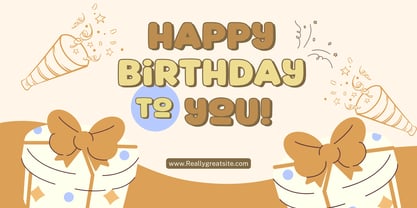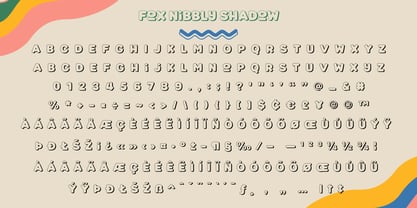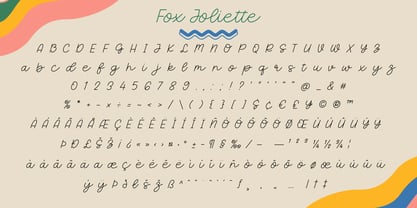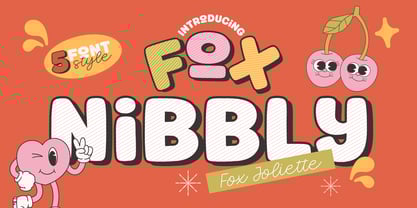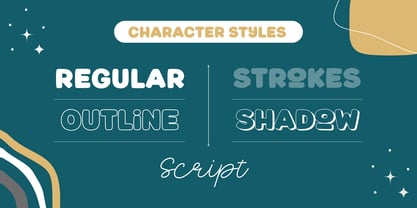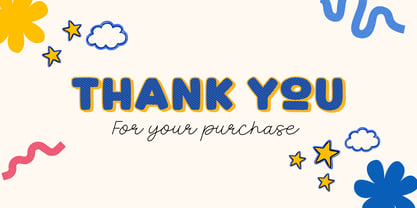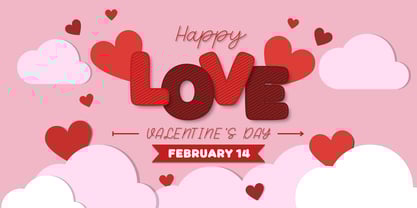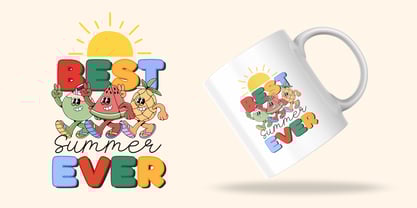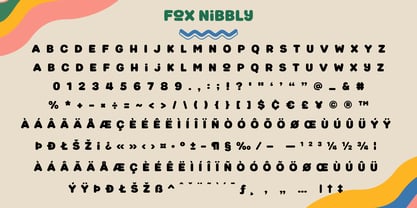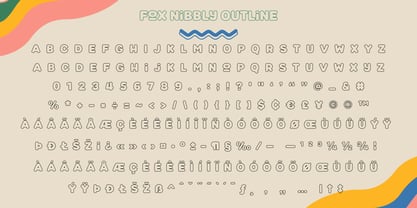
Fox Nibbly
by Fox7
The Fox Nibbly Font Family was designed by Rattana Rattanawan and published by Fox7. Fox Nibbly contains 5 styles and family package options. More about this family
Get ready to add a pop of cuteness and charm to your creative projects with Fox Joliette + Fox Nibbly – a delightful font duo inspired by retro cartoons, kawaii style
This font family includes 5 fun and versatile styles that are perfect for children’s books, packaging, branding, party invitations, social media posts, and more!
Fox Nibbly Regular – Bold, bubbly letters full of personality
Fox Nibbly Outline – A clean outline version perfect for layering or coloring
Fox Nibbly Shadow – Adds playful depth to your text
Fox Nibbly Strokes – A unique hatched-line texture for fun variety
Fox Joliette Script – A sweet, handwritten cursive for stylish pairings
Bring joy, warmth, and retro vibes into your next project with the Fox Joliette + Fox Nibbly Font Family!
Designers: Rattana Rattanawan
Foundry: Fox7